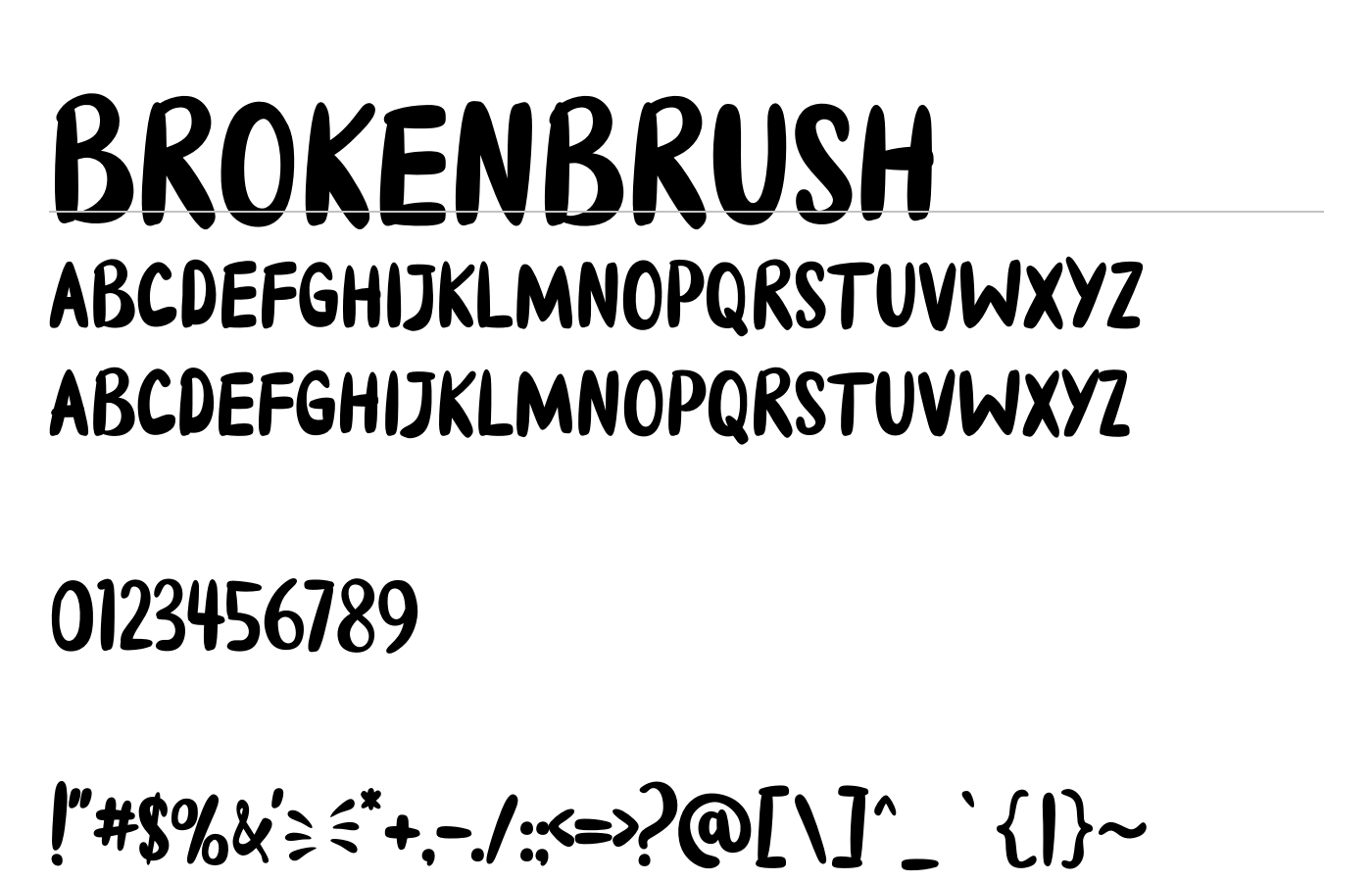
Brokenbrush is a playful and expressive handwritten sans serif font that features irregular, rounded strokes with a casual brush-like texture. Its bold, dynamic letterforms and slightly condensed width make it perfect for lively headlines, creative branding, and informal designs seeking a friendly, energetic vibe. This font works well in projects that want to convey personality and warmth, such as posters, packaging, and social media graphics.
Brokenbrush Font
About Brokenbrush Font